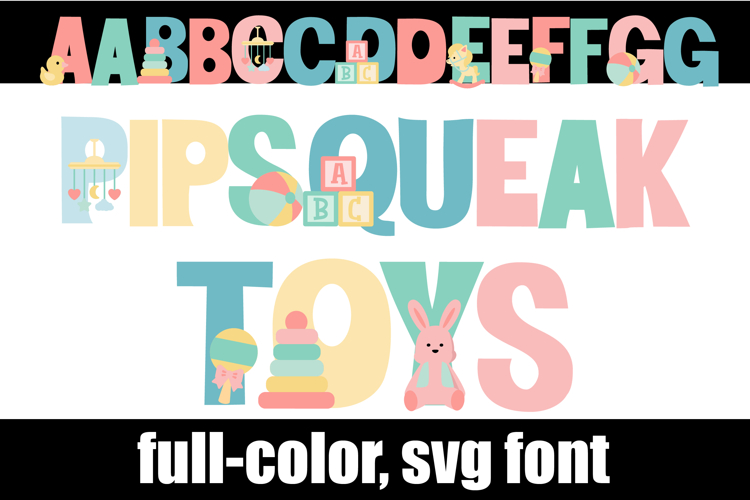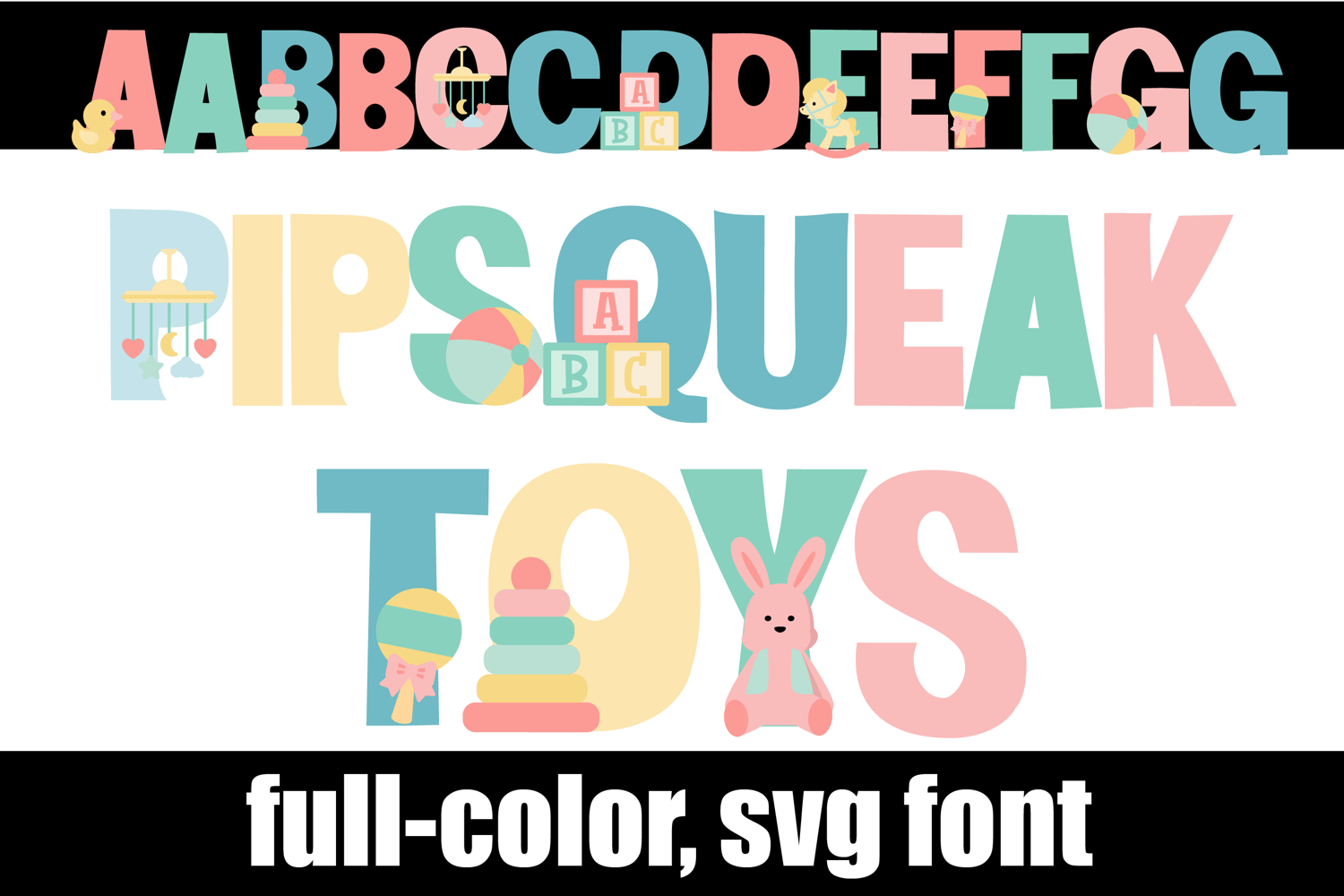
Pipsqueak Toys Color Font
This full-color, pastel-colored font features a babies on the uppercase. There is an alt case of each letter with a different color combination.